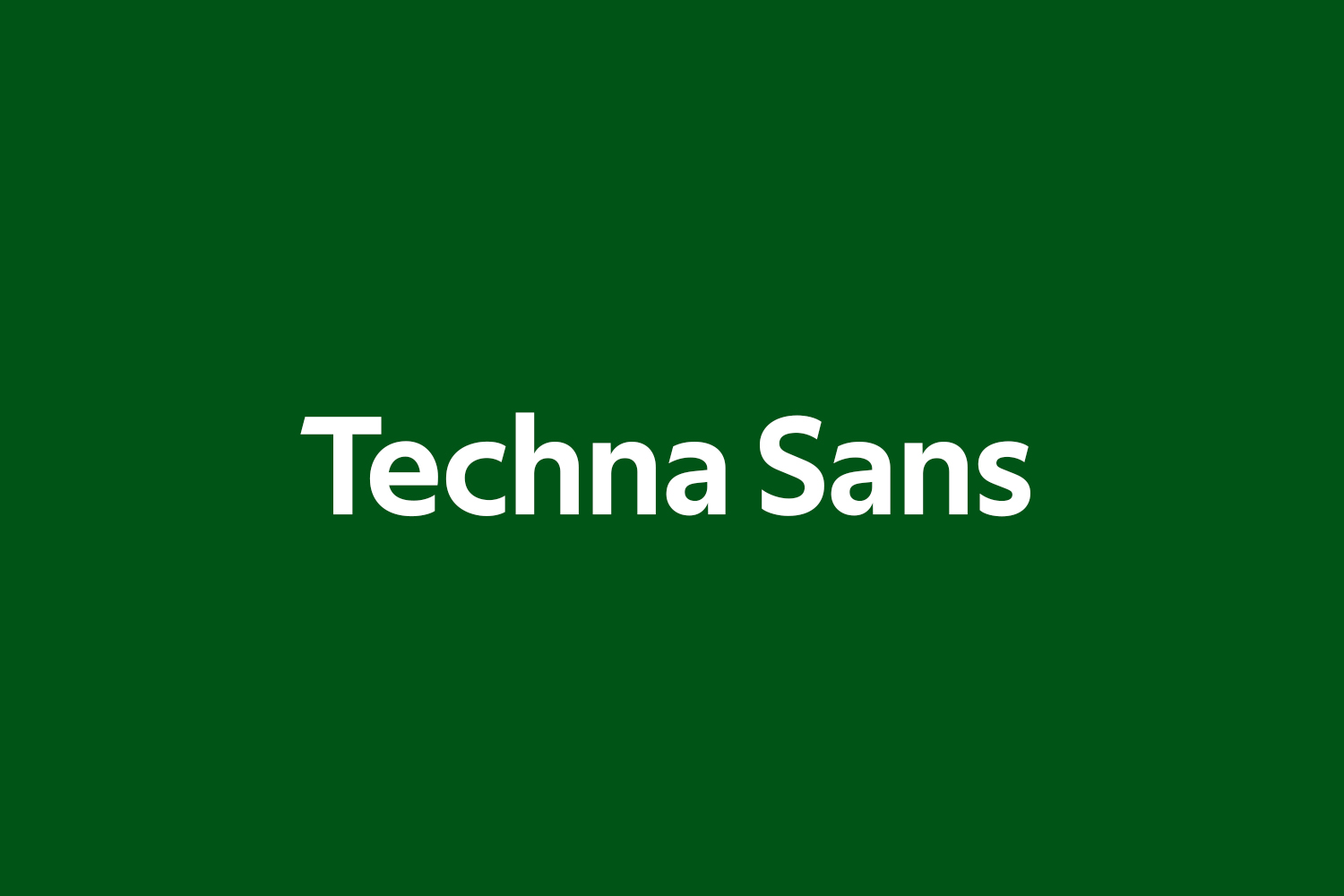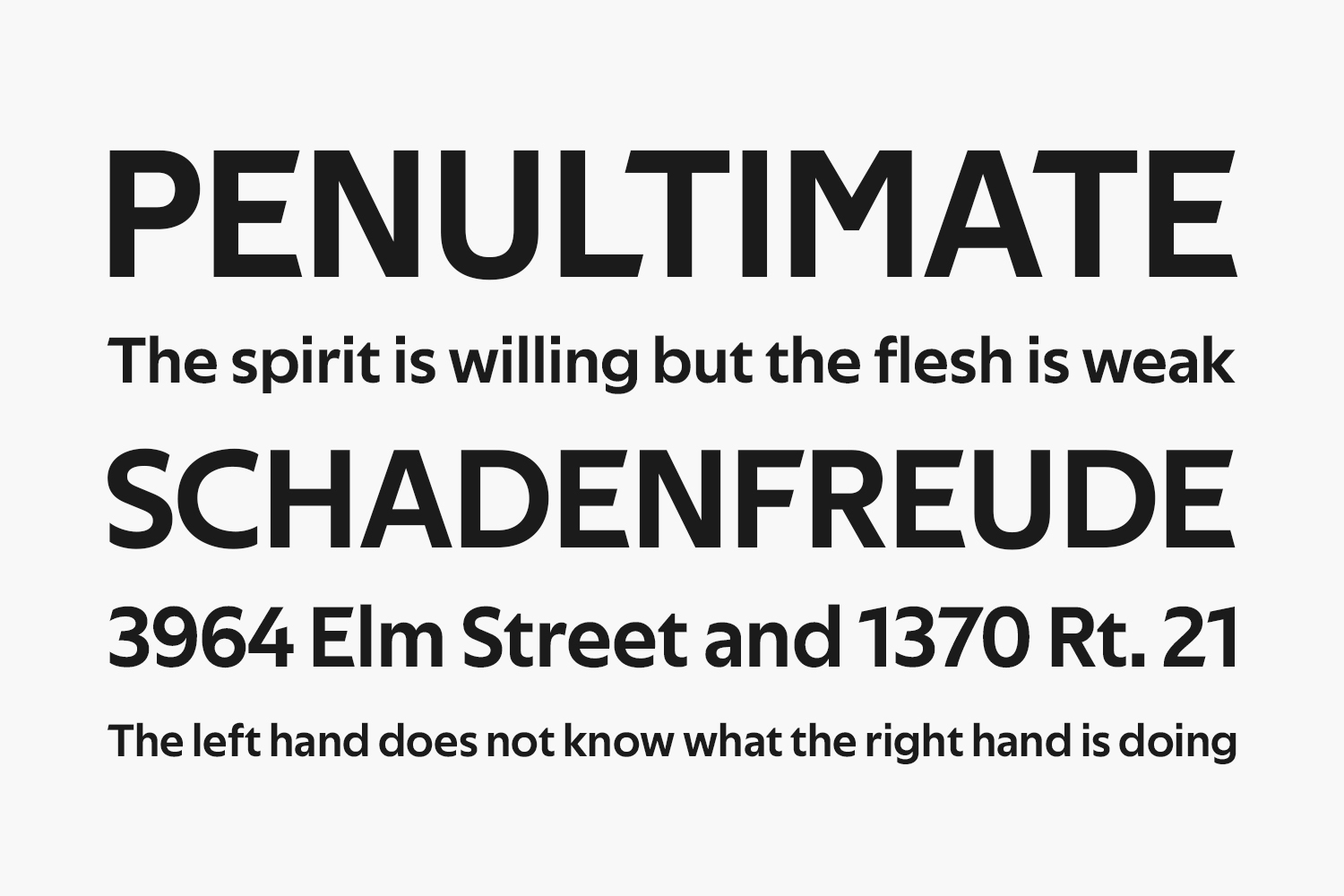
Techna Sans Free Font is a bold, semi-geometric sans-serif typeface. With its low contrast and sharp stroke endings, it has an authentic and modern look, making it perfect for branding and headlines. The typeface works well both in large and small sizes and handles tight spacing nicely.
Designed by Carl Enlund